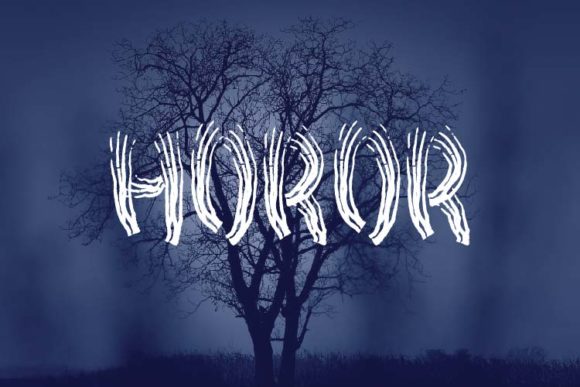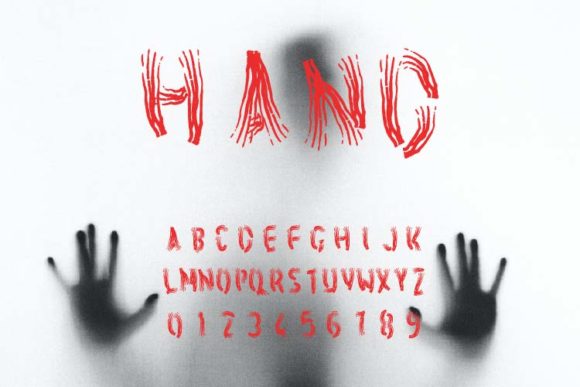
Unleash the Spooky Spirit: Exploring the Versatility of Halloween Font
Halloween is just around the corner, and with it comes the thrill of creating spooky and spectacular designs. Whether you’re a designer, crafter, or simply a Halloween enthusiast, having the right font can make all the difference in bringing your eerie creations to life. That’s where the Halloween Font comes in – an incredibly unique and interesting display font that’s a little bit quirky, yet looks incredibly adept on a wide variety of contexts!
The Origins of Halloween Font
The Halloween Font is a specialty font designed specifically for the spookiest time of the year. Its origins are rooted in the desire to create a typographic style that captures the essence of Halloween’s playful yet eerie atmosphere. With its bold, curvaceous lines and ornate details, this font is sure to add a touch of macabre whimsy to any design project.
What Makes Halloween Font So Special?
So, what sets the Halloween Font apart from other display fonts? Here are a few features that make it a standout:
- Unique Character Set: The Halloween Font boasts a distinctive character set that’s packed with spooky symbols, including bats, ghosts, jack-o’-lanterns, and more. These special characters allow designers to add an extra layer of Halloween flair to their designs.
- Quirky yet Legible: Despite its quirky design, the Halloween Font remains surprisingly legible, making it perfect for use in a variety of contexts, from posters and flyers to invitations and crafts.
- Versatile: The Halloween Font is incredibly versatile, and can be used in a range of design projects, from digital graphics to handmade crafts.
Using Halloween Font in Design Projects
The Halloween Font is an incredibly versatile design element that can be used in a wide range of projects. Here are a few ideas to get you started:
- Halloween Invitations: Create spooky and spectacular invitations for Halloween parties, trick-or-treat events, or haunted house attractions.
- Posters and Flyers: Design eye-catching posters and flyers for Halloween events, including horror movie premieres, costume contests, or spooky festivals.
- Crafts and DIY Projects: Use the Halloween Font to add a personal touch to handmade crafts, such as carved pumpkins, spooky decorations, or Halloween-themed gift tags.
- Digital Graphics: Incorporate the Halloween Font into digital graphics, such as social media posts, blog headers, or email newsletters, to add a touch of Halloween flair.
Tips for Working with Halloween Font
To get the most out of the Halloween Font, here are a few tips to keep in mind:
- Experiment with Colors: The Halloween Font looks great in a range of colors, from bold and bright to dark and muted. Experiment with different color schemes to find the perfect fit for your design.
- Mix and Match: Combine the Halloween Font with other design elements, such as images, textures, or patterns, to create a unique and eye-catching design.
- Don’t Overdo It: While the Halloween Font is perfect for adding a touch of spooky whimsy, be careful not to overdo it. Balance the font with more straightforward typography to ensure your design remains legible and effective.
The Halloween Font is a unique and versatile design element that’s perfect for adding a touch of spooky whimsy to any design project. With its quirky character set, legible design, and wide range of uses, this font is sure to become a go-to for designers, crafters, and Halloween enthusiasts alike. So why not give it a try? Unleash the spooky spirit and bring your Halloween designs to life with the Halloween Font!